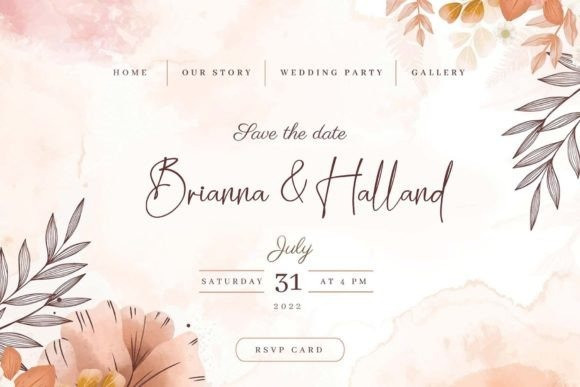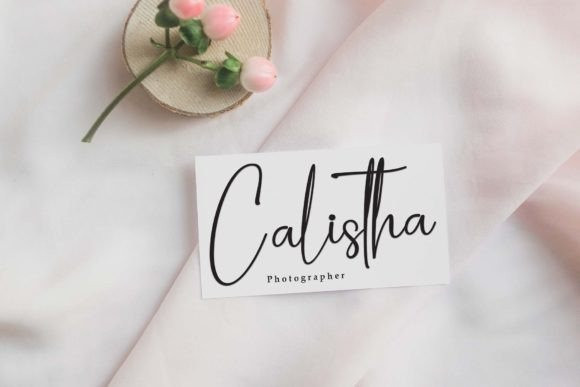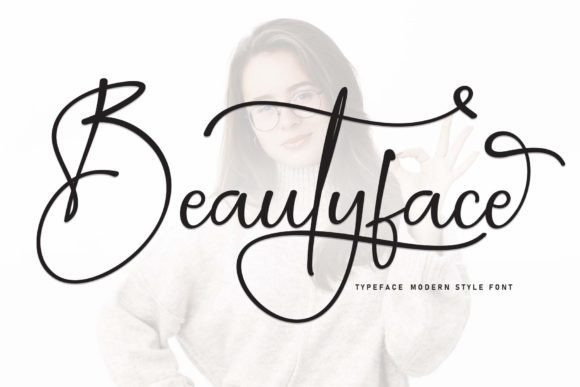
Beautyface Script Font
Beautyface Script Font is an exquisite handwritten font, masterfully designed to become a true favorite. It maintains its classy calligraphic influences while feeling contemporary and fresh. Fall in love with it and bring your projects to the highest levels!